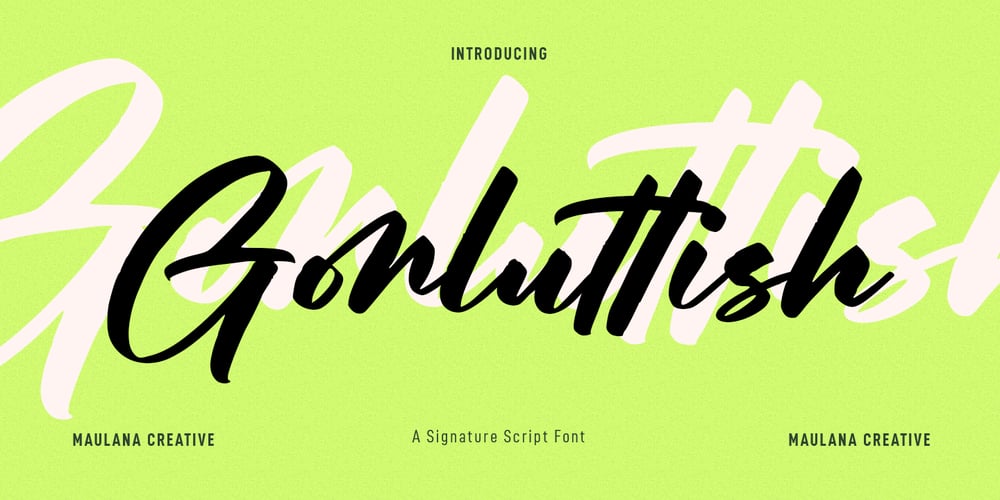
Gorluttish Font Family was designed by Gilang Maulana and published by Maulana Creative. Gorluttish contains 1 styles and family package options. Gorluttish is an expressive display handwritten script font. With bold stroke, fun character with a bit of ligatures and swashes alternates. To give you an extra creative work. Gorluttish font support multilingual more than 100+ language. This font is good for logo design, Social media, Movie Titles, Books Titles, a short text even a long text letter and good for your secondary text font with sans or serif. Make a stunning work with Gorluttish font. Cheers, Maulana Creative